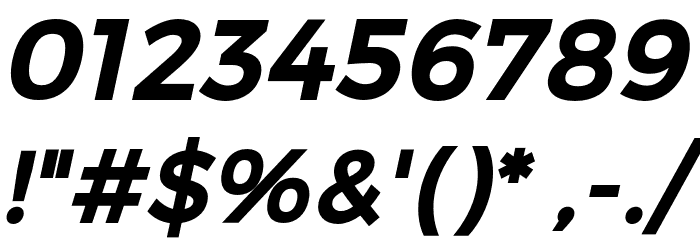
Bokonique-BoldItalic Font
This font presents a clean and modern aesthetic with a bold and italicized style. The uppercase and lowercase letters are well-proportioned, offering a sleek and professional look. The numerals are clear and distinct, making them easily readable. Special characters are included, maintaining the font's cohesive design. The overall appearance is contemporary, suitable for a variety of digital and print applications. Its bold weight and italic slant add emphasis and dynamism, making it ideal for headlines and attention-grabbing text.
A bold, italicized modern font with clean lines and a professional look.
- Proposed Projects: Ideal for branding, advertising, headlines, and digital media where a modern and bold statement is needed.
- Use Case: Headlines, Logos, Digital Media